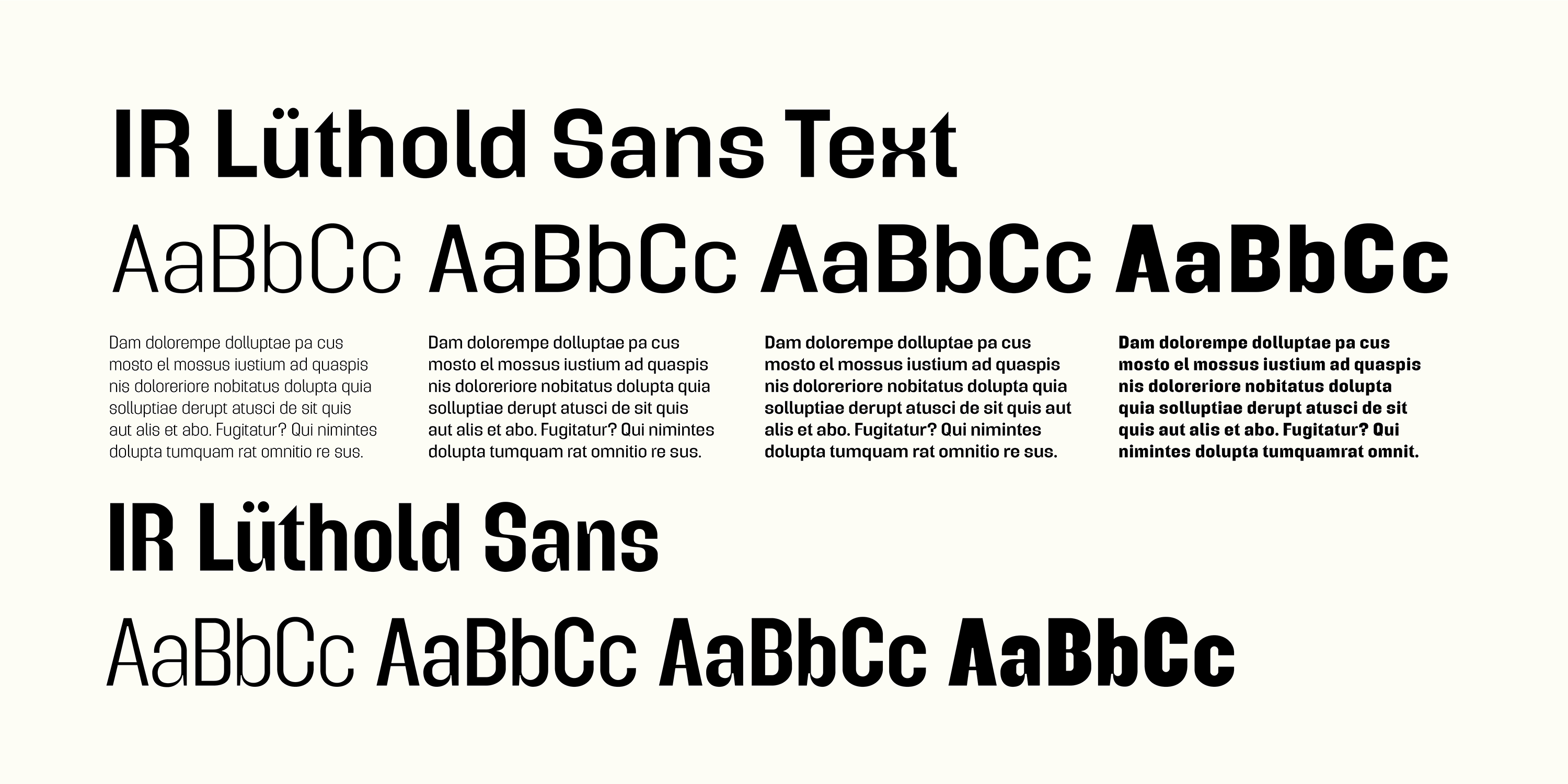
IR Lüthold Sans Text
We’re delighted to welcome Ian Ritchie to the ranks of guest designers at The London Type Foundry. Ian was a founding partner at JKR (Jones Knowles Ritchie) — one of the world’s most successful and creative design consultancies.
Ian started signwriting in his spare time at art college back in the seventies, skills he put to good use when sketching the initial letterforms for Lüthold.
Following the initial sketchwork, Ian collaborated with Paul Harpin to draw the key letterforms for Lüthold Sans. The resulting design was a condensed sans serif which was authoritative and yet full of character; pronounced ink traps and high contrast elements, most noticeably on spines and crossbars, gave the typeface real personality.
It was quickly decided that a separate text family should be added to the range for additional versatility. Lüthold Sans Text is a medium width type family with lower contrast strokes, more suitable for body copy use at smaller sizes. The family contains 8 styles with 4 weights from ExtraLight to Bold and accompanying italics.